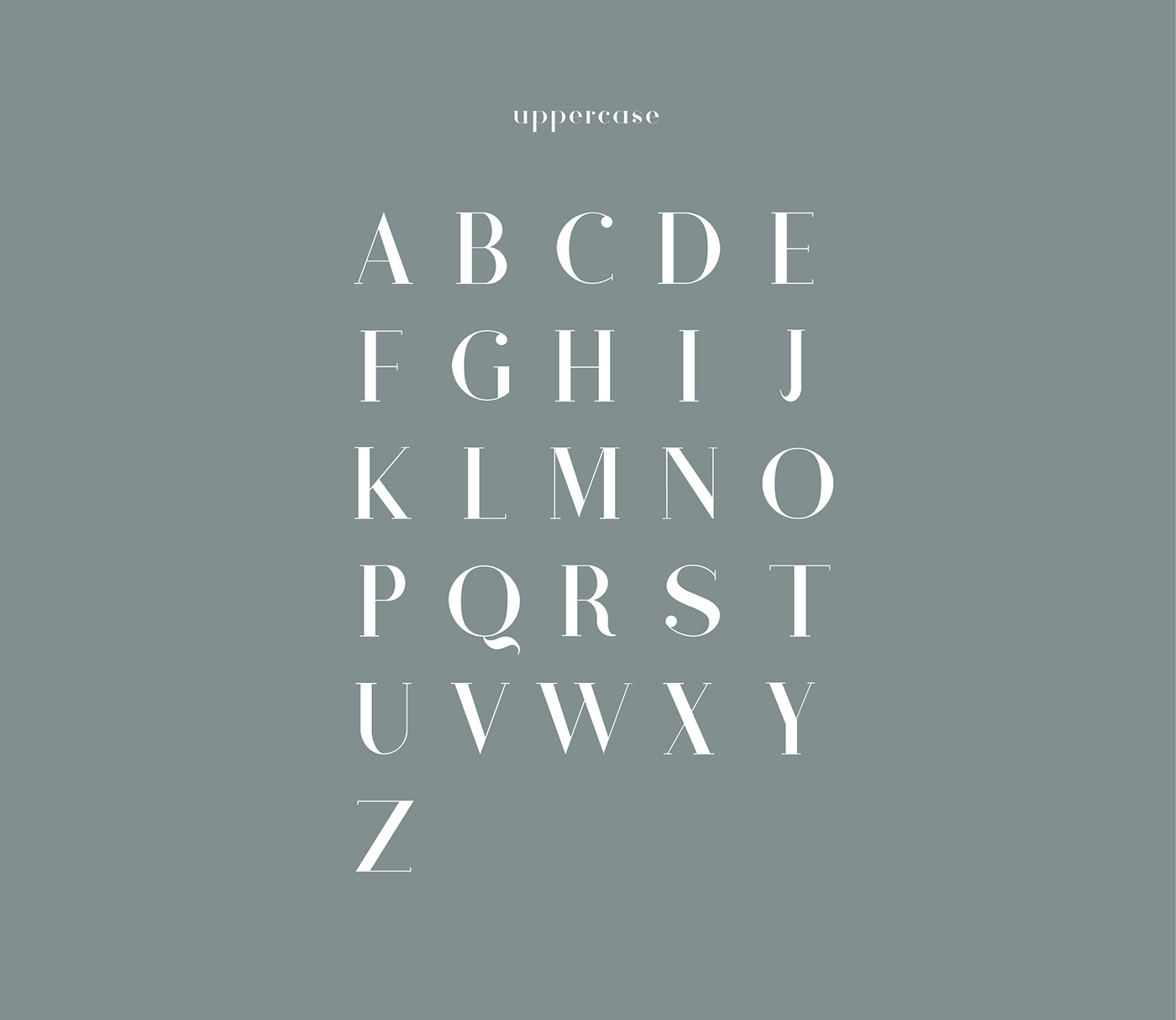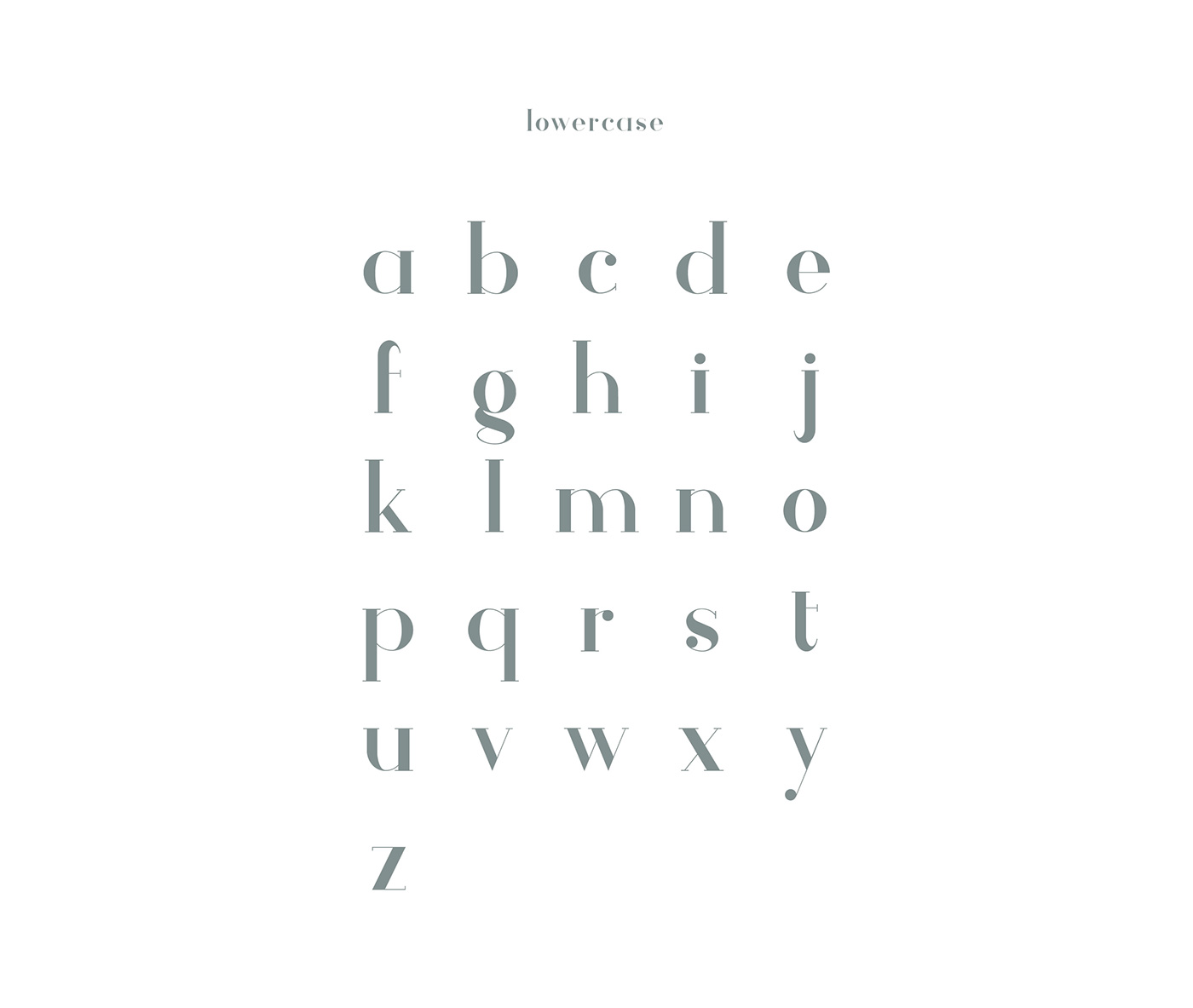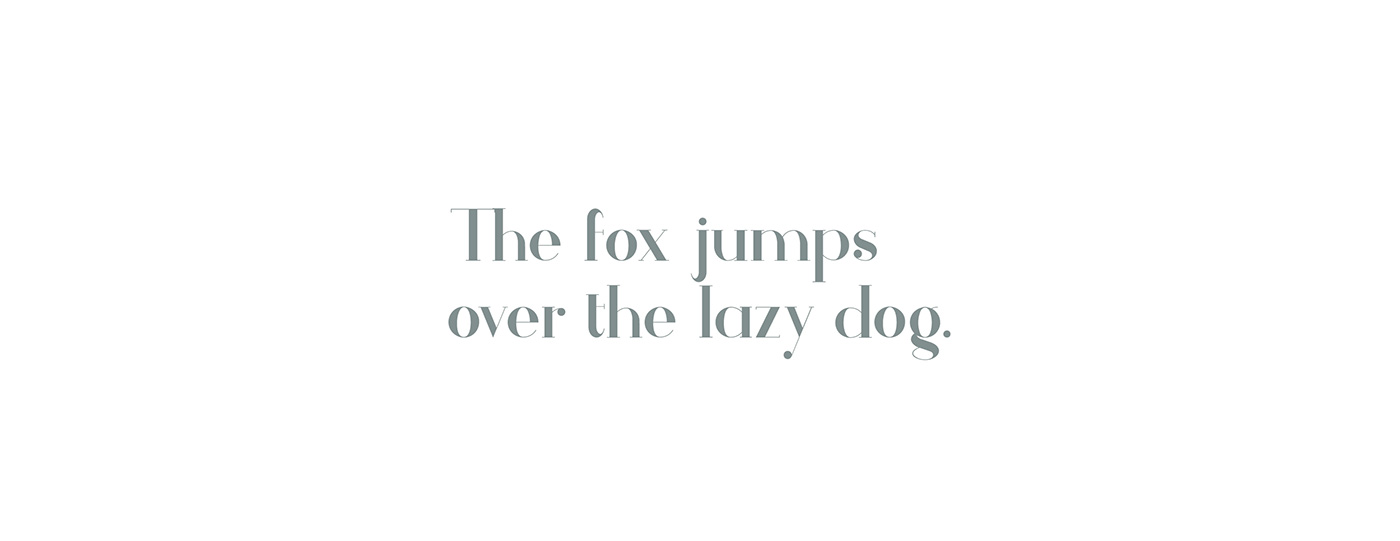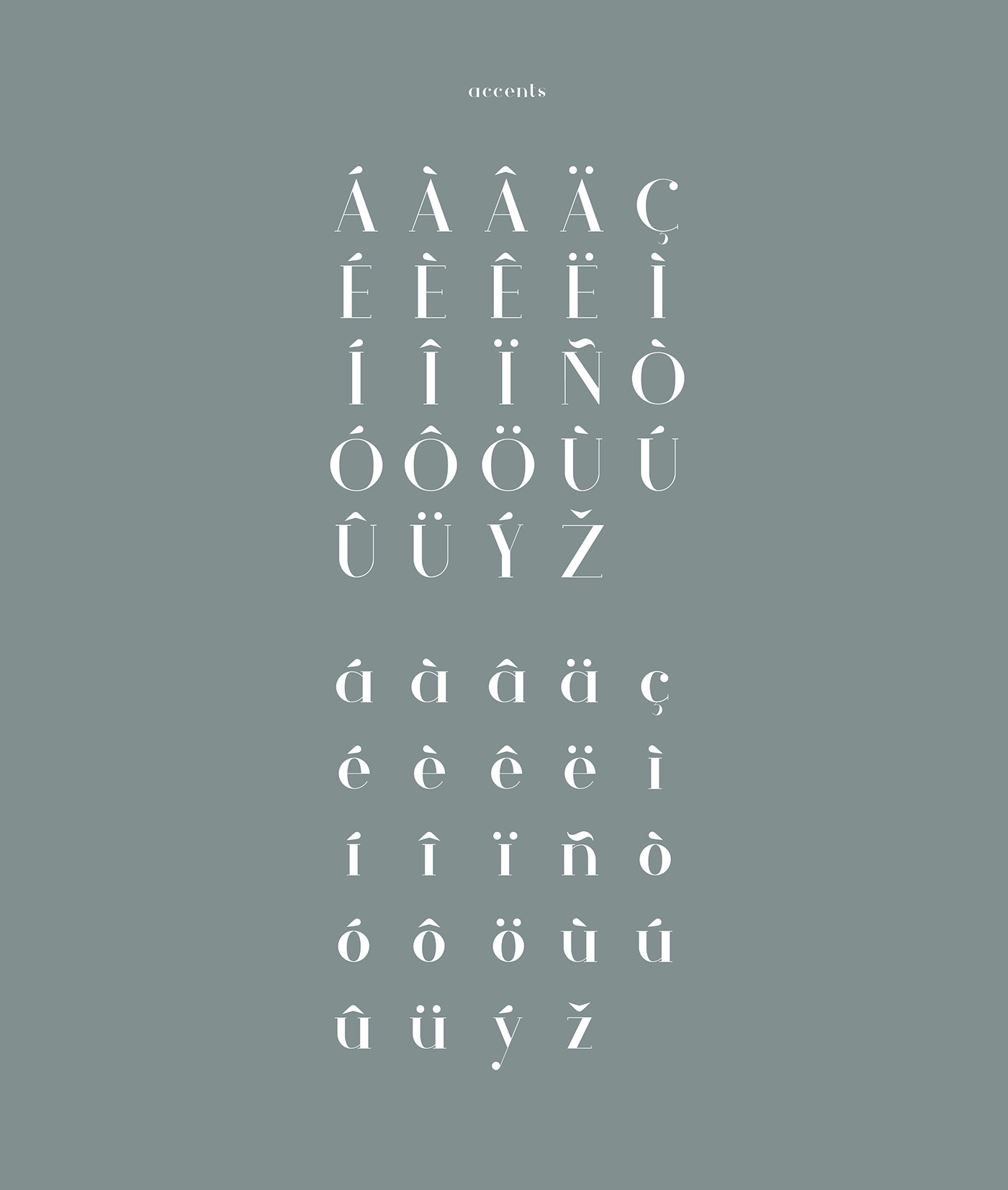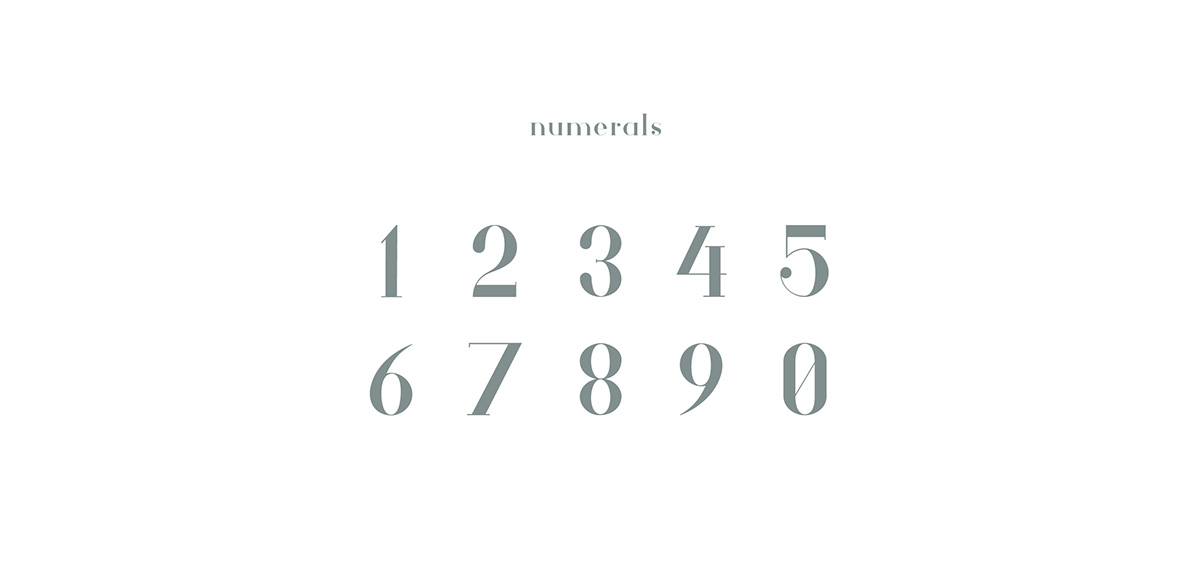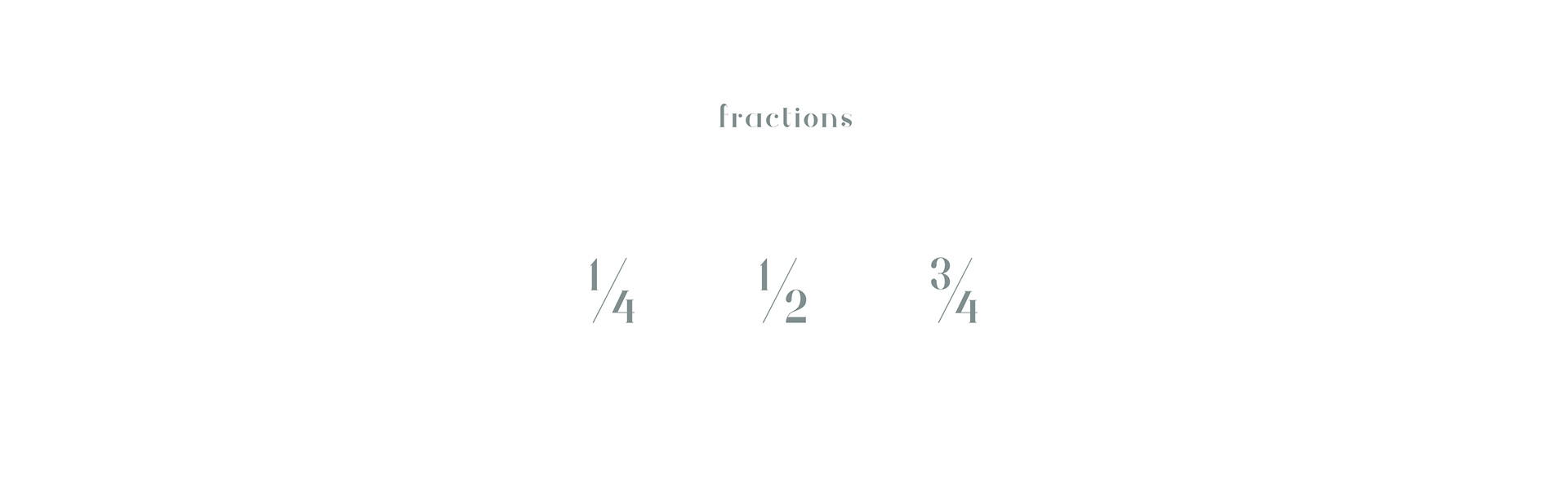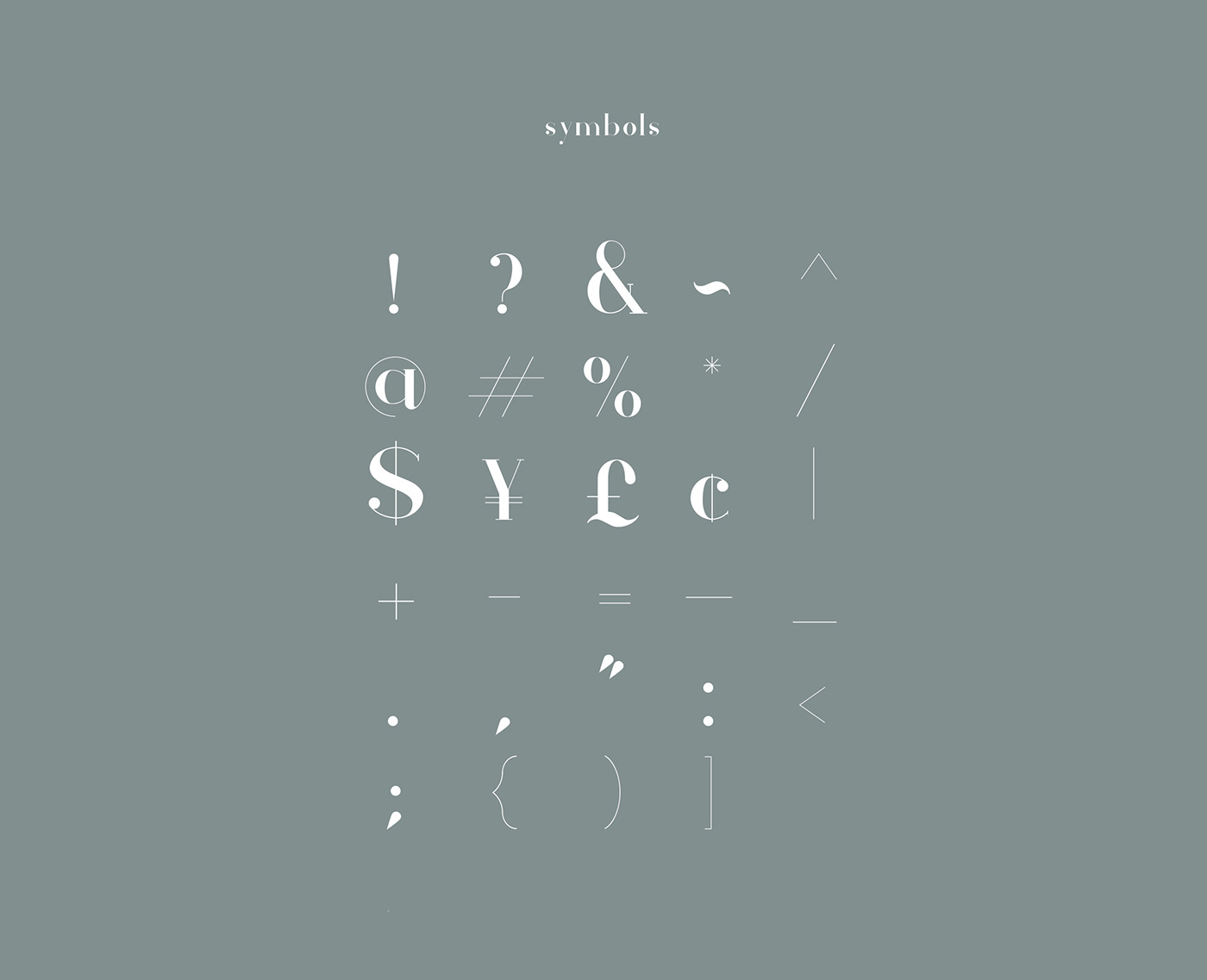
Athene is a serif typeface with some modern geometric flair. Created by Matt Ellis , this typeface is able to suit many applications, but is most suited as a display font.